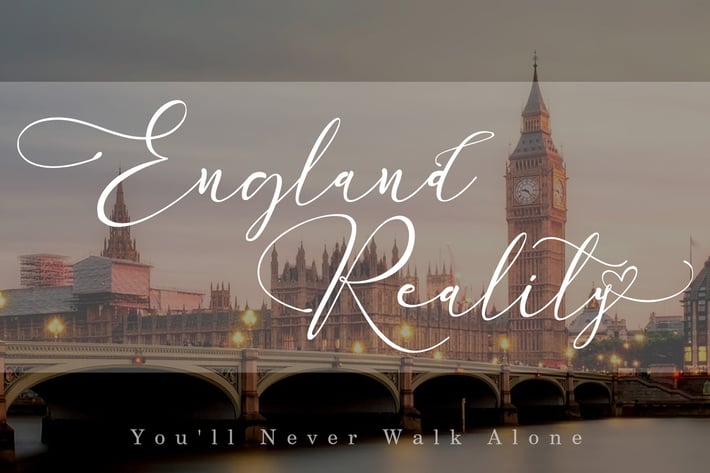
England Reality // Luxury Script Font
England Reality // Luxury Script is a beautiful and light handwritten font with a unique feel. It will add a personal spark to any design project!
Each Font Has:
Stylish modern handwritten script
Beautiful Swash (Ending tail)
Beautiful Titling (Beginning tail)
Special Ligatures